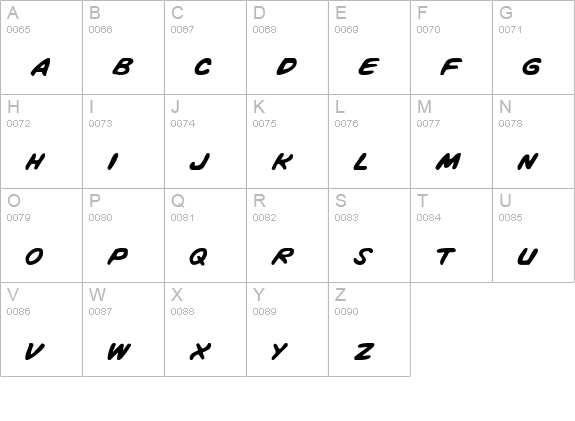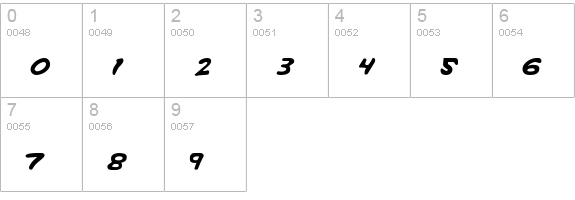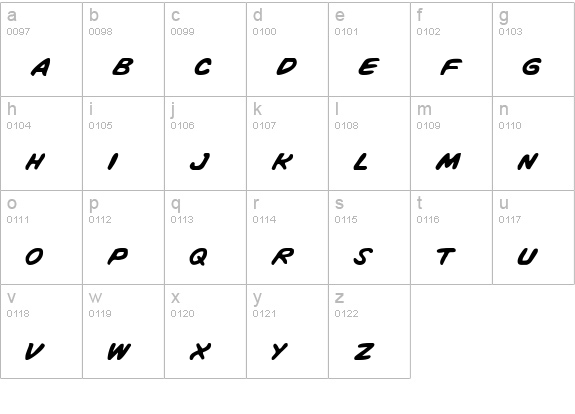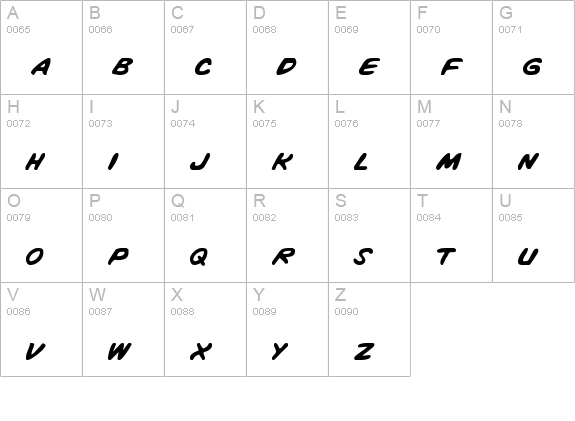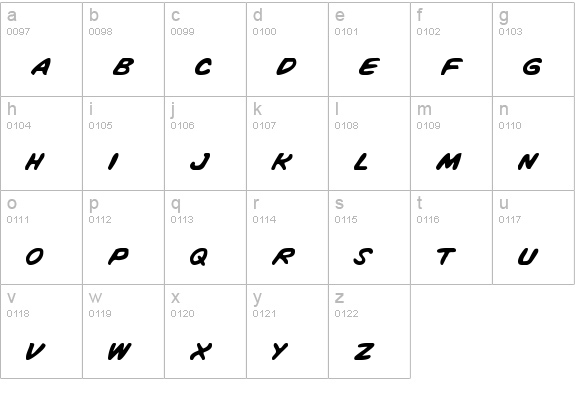
Vigilante Notes Font Details
Vigilante Notes font is a bold and striking typeface that exudes a sense of mystery and intrigue. With its sharp angles and edgy design, this font is perfect for adding a touch of vigilante spirit to your projects. Whether you're creating posters, logos, or social media graphics, Vigilante Notes will make a powerful statement. Best of all, this font is completely free to use! You can download it for free at FontsMarket.com and start incorporating its unique style into your designs today. Don't miss out on the opportunity to add a touch of rebellious flair to your next project with Vigilante Notes font.